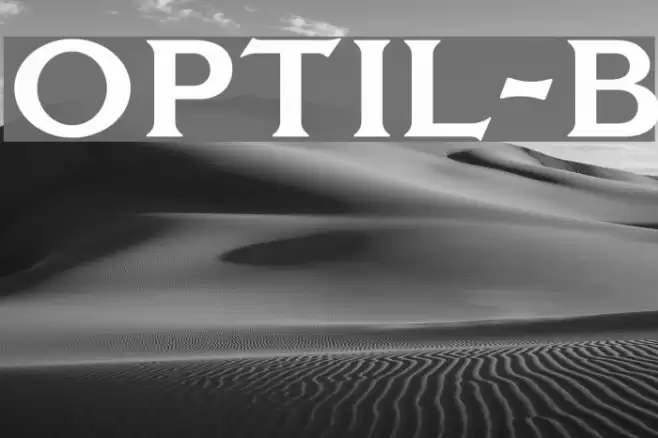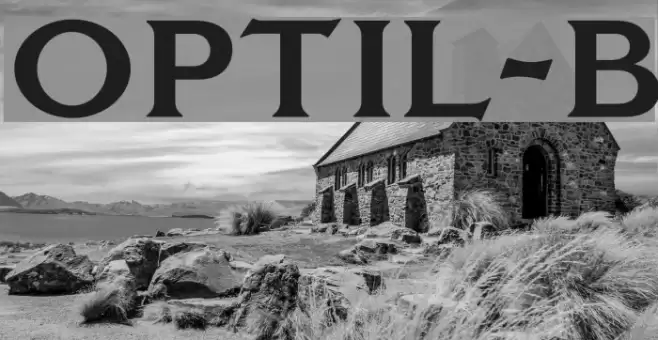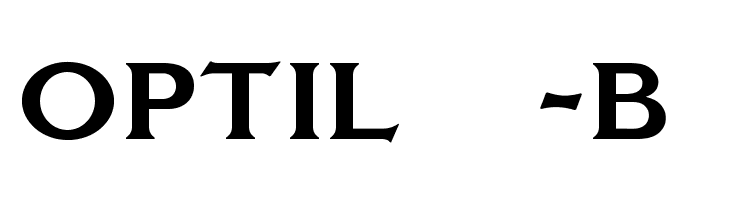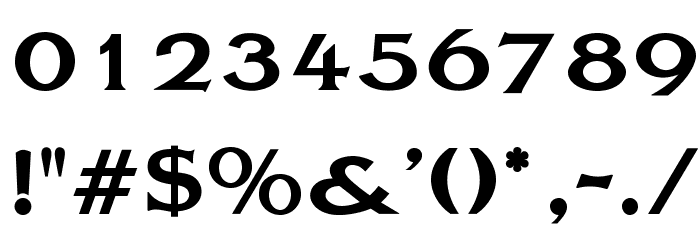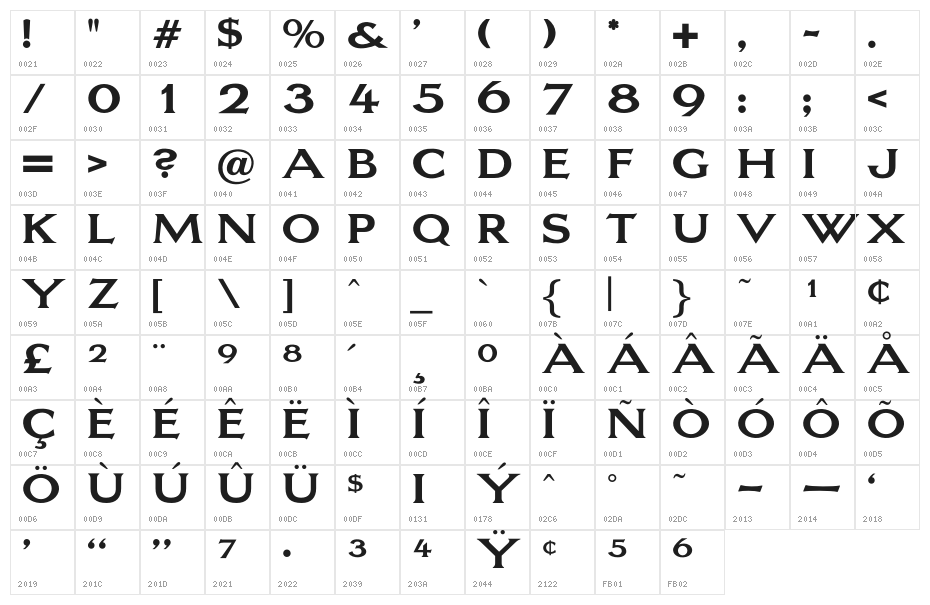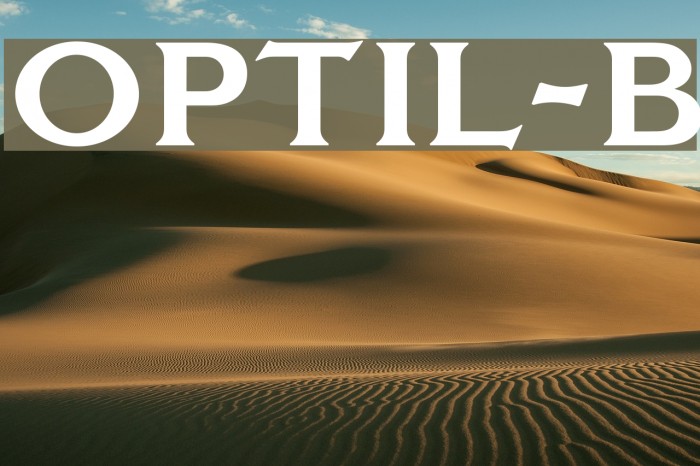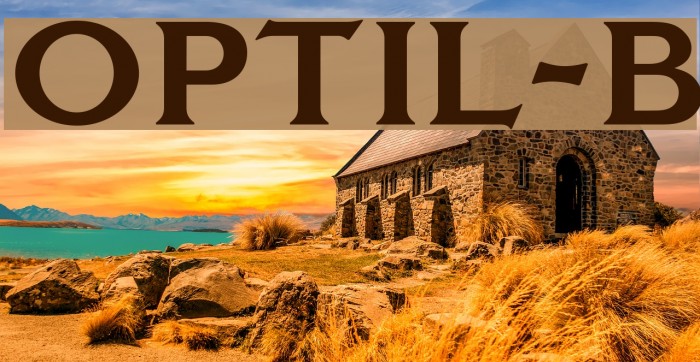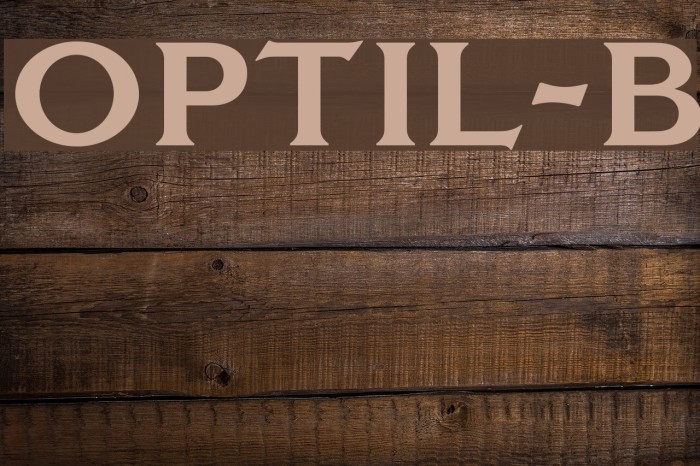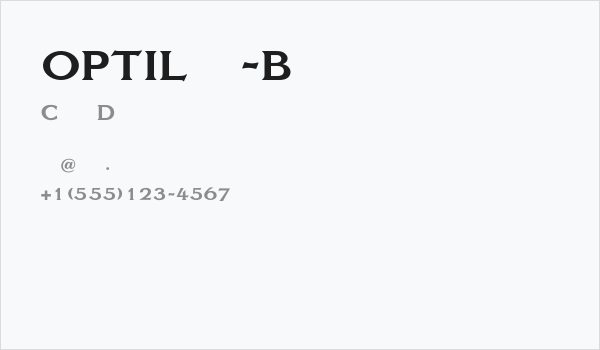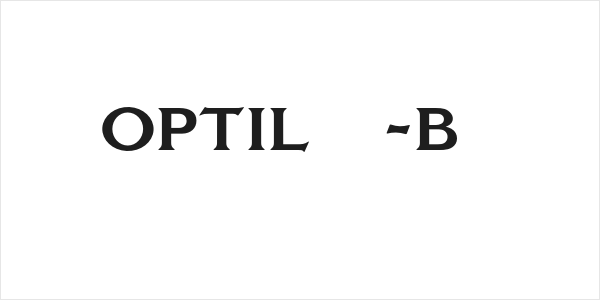
OPTILagoon-Bold Font
OPTILagoon-Bold Description
This font features a bold and striking design with a classic serif style. The uppercase letters are robust and well-defined, offering a sense of authority and elegance. The numerals are equally bold, maintaining a consistent weight throughout. Special characters are designed with a similar boldness, ensuring they stand out clearly. The overall appearance is both traditional and impactful, making it suitable for a variety of formal applications. The serifs are pronounced, adding a touch of sophistication and readability.
A bold, classic serif font with strong, elegant characters from Uncategorized fonts.
- Proposed Projects: Ideal for book covers, formal invitations, branding materials, and editorial headlines.
- Overall Style: Classic
- Use Case: Headlines, Logos, Branding